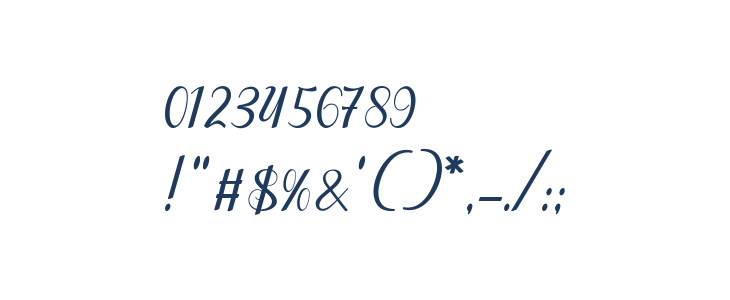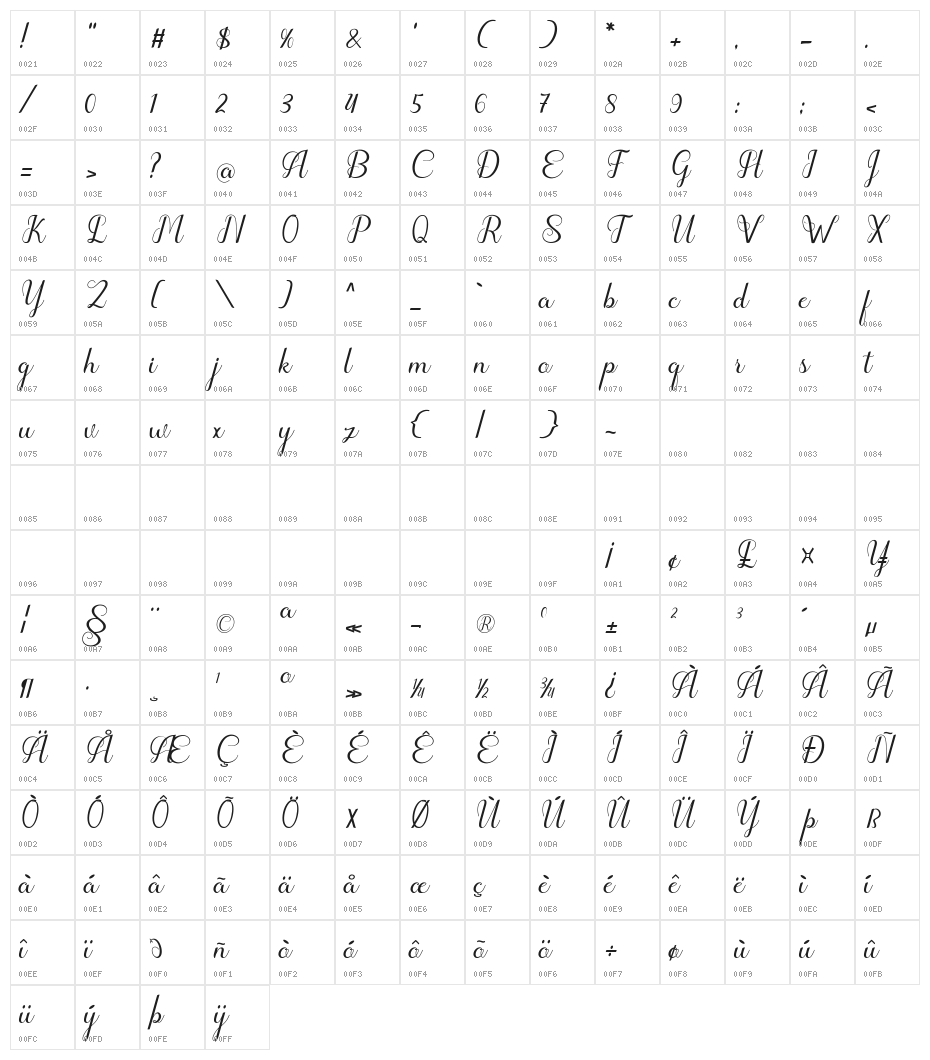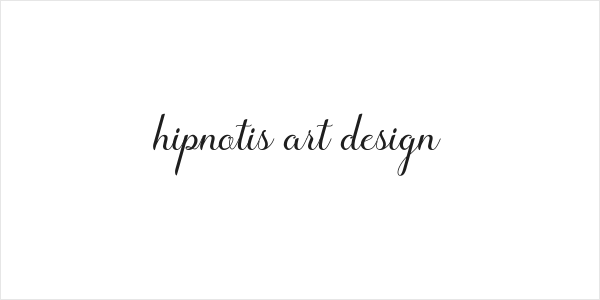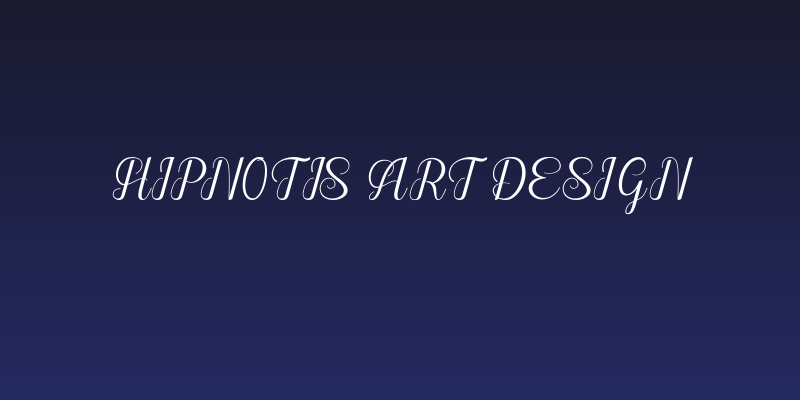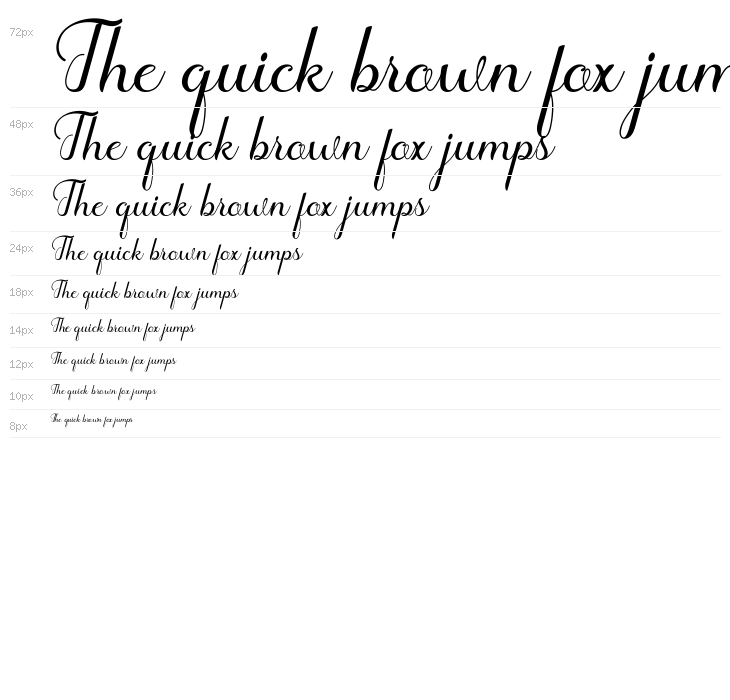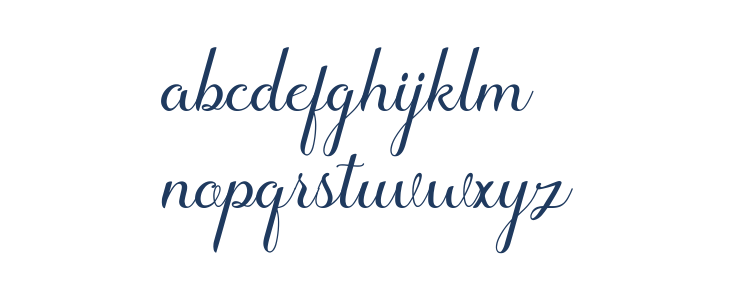
hipnotis art design Font
hipnotis art design Description
This elegant script font features flowing, cursive letterforms with a classic and sophisticated appearance. The uppercase letters are gracefully connected, while the lowercase letters exhibit a smooth, fluid motion, creating a harmonious and stylish look. The numerals are consistent with the overall script style, maintaining the same flowing characteristics. Special characters are designed to complement the font's cursive nature, adding to its decorative appeal. This font is ideal for projects that require a touch of elegance and refinement.
| Proposed Projects | Wedding invitations, greeting cards, branding, and luxury product packaging. |